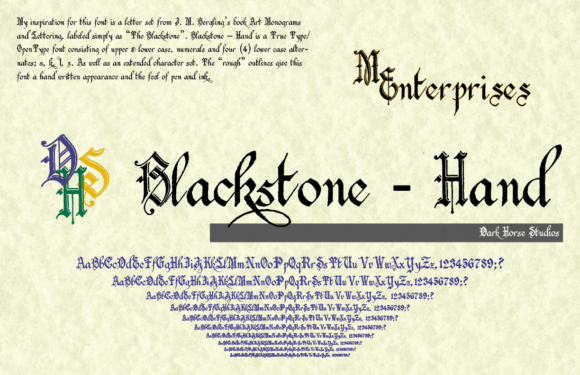
Unleash the Power of Blackstone Hand Font: A Gothic, Medieval-Style Black Letter Font
Are you a designer or crafter looking for a font that exudes an old-world, monogrammed feel? Look no further than the Blackstone Hand Font, a gothic, medieval-style black letter font that is sure to add a touch of elegance and sophistication to your projects. Inspired by a letter set from J.M. Berling’s book Art Monograms & Lettering, this font is perfect for those who want to add a touch of vintage charm to their designs.
What is Blackstone Hand Font?
Blackstone Hand Font is a digital font that mimics the look of traditional black lettering, with intricate details and ornate flourishes. The font is designed to resemble hand-written letters, with a distinctive gothic style that is reminiscent of medieval manuscripts. The result is a font that looks like it was penned by a skilled calligrapher, with a level of craftsmanship and attention to detail that is hard to find in modern digital fonts.
The Inspiration Behind Blackstone Hand Font
The inspiration for Blackstone Hand Font comes from J.M. Berling’s book Art Monograms & Lettering, a classic book on lettering and monogramming that has been a source of inspiration for designers and crafters for generations. The book features a range of beautiful letter sets, each one carefully crafted to showcase the art of lettering. The Blackstone Hand Font takes its cue from one of these letter sets, capturing the essence of traditional black lettering and bringing it into the digital age.
Characteristics of Blackstone Hand Font
So what makes Blackstone Hand Font so special? Here are just a few of its key characteristics:
- Gothic style: Blackstone Hand Font is a true gothic font, with a distinctive style that is reminiscent of medieval manuscripts.
- Intricate details: The font features intricate details and ornate flourishes, giving it a level of craftsmanship and attention to detail that is hard to find in modern digital fonts.
- Hand-written feel: Despite being a digital font, Blackstone Hand Font has a hand-written feel that makes it perfect for adding a personal touch to your designs.
- Monogrammed feel: The font is perfect for creating monograms and other decorative lettering, with a range of letters and symbols that can be used to create beautiful, intricate designs.
Uses for Blackstone Hand Font
So what can you use Blackstone Hand Font for? The possibilities are endless, but here are just a few ideas to get you started:
- Wedding invitations: Add a touch of elegance and sophistication to your wedding invitations with Blackstone Hand Font.
- Stationery: Use the font to create beautiful, custom stationery that is perfect for letters, cards, and other correspondence.
- Signage: Blackstone Hand Font is perfect for creating eye-catching signage, from store signs to directional signs.
- Crafting: The font is a great choice for crafters, who can use it to add a personal touch to their projects, from scrapbooking to woodworking.
Tips for Using Blackstone Hand Font
Here are a few tips for getting the most out of Blackstone Hand Font:
- Use it sparingly: While Blackstone Hand Font is beautiful, it can be overpowering if used too much. Use it sparingly to add a touch of elegance and sophistication to your designs.
- Experiment with colors: The font looks great in a range of colors, from traditional black and white to bold, bright colors.
- Pair it with other fonts: Blackstone Hand Font pairs well with a range of other fonts, from simple sans serifs to ornate script fonts.
| Author | menterprises62 |
Blackstone Hand Font is a beautiful, gothic, medieval-style black letter font that is perfect for designers and crafters who want to add a touch of old-world charm to their projects. With its intricate details, ornate flourishes, and hand-written feel, this font is sure to impress. Whether you’re creating wedding invitations, stationery, signage, or crafting projects, Blackstone Hand Font is a great choice. So why not give it a try and see what beautiful designs you can create?